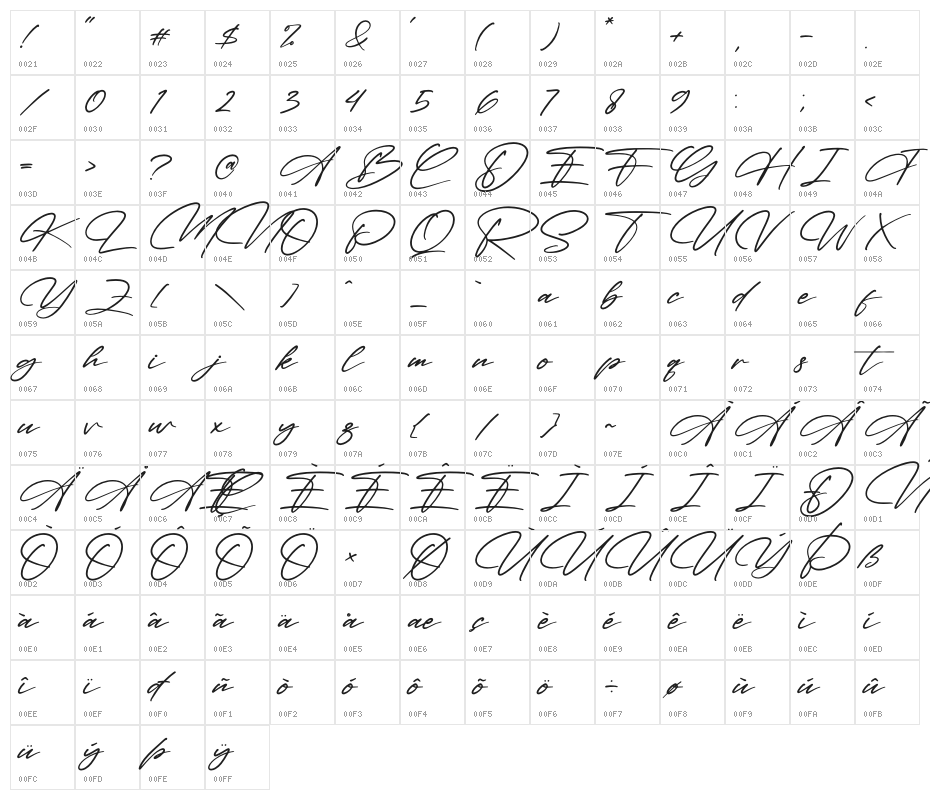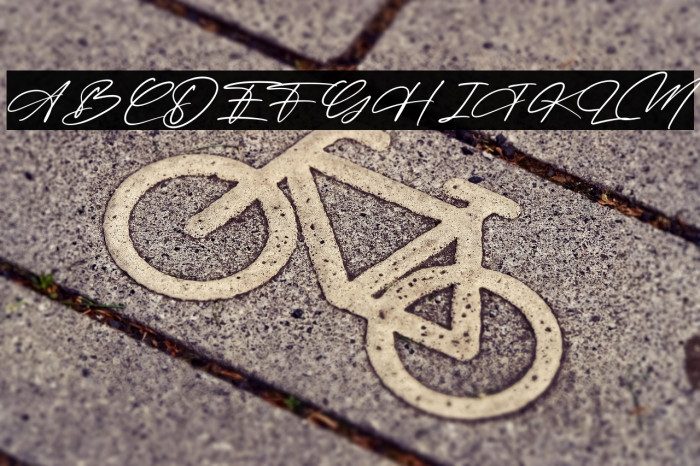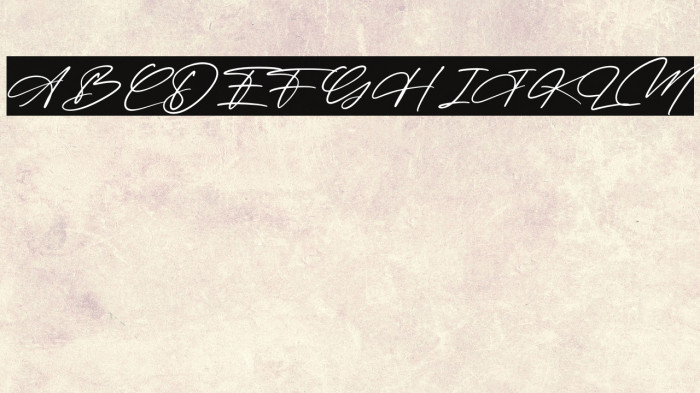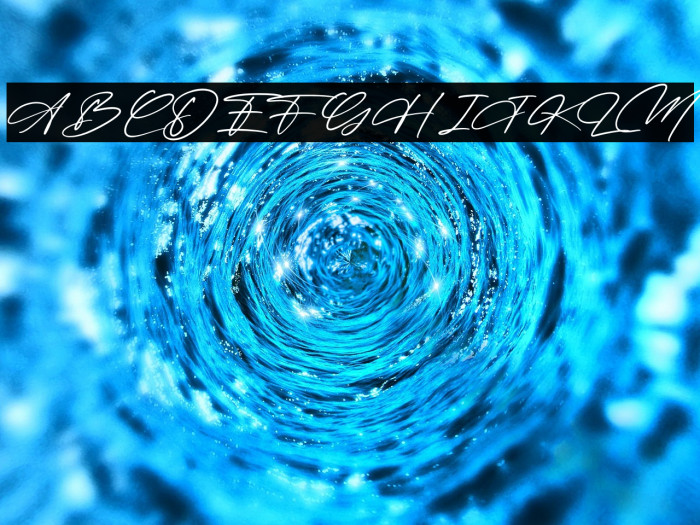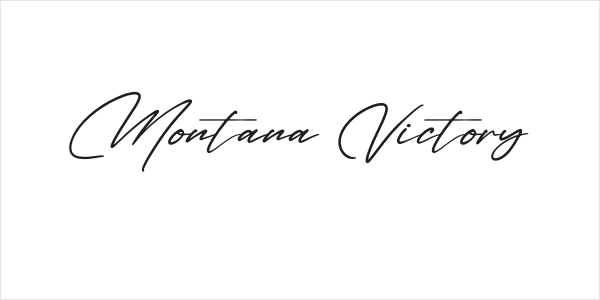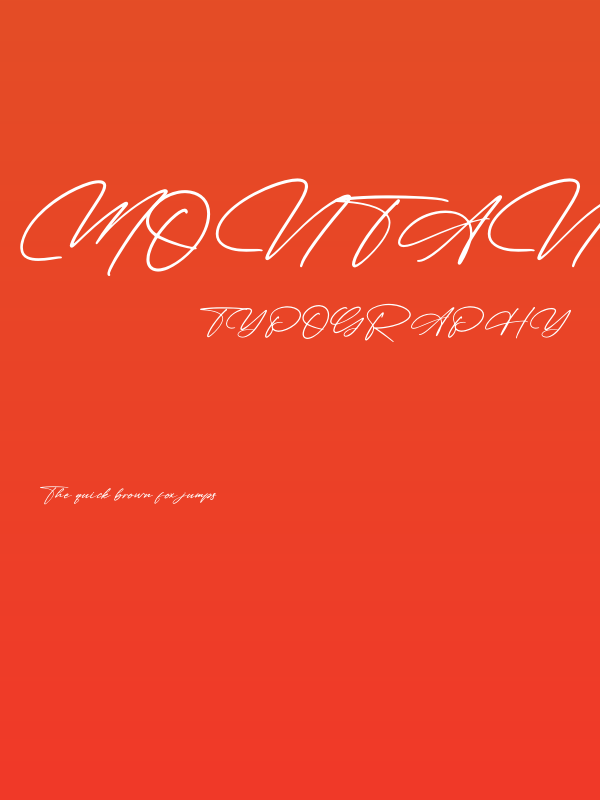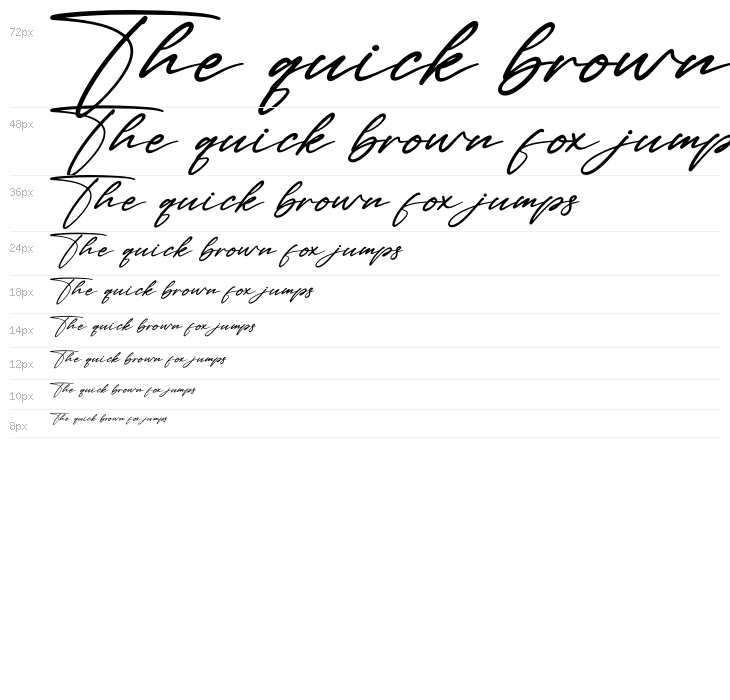
Montana Victory Font
Montana Victory Description
This elegant script font features a flowing, cursive style that mimics natural handwriting. The uppercase letters are intricately designed with smooth, continuous strokes, while the lowercase letters maintain a consistent, fluid form. The numerals are crafted to match the overall aesthetic, providing a cohesive look. Special characters are included, each designed to complement the script's graceful appearance. The font's overall style is both sophisticated and approachable, making it suitable for a variety of creative projects.
| Overall Style | Elegant, Handwritten |
| Proposed Projects | Ideal for wedding invitations, greeting cards, branding, and elegant logo designs. |